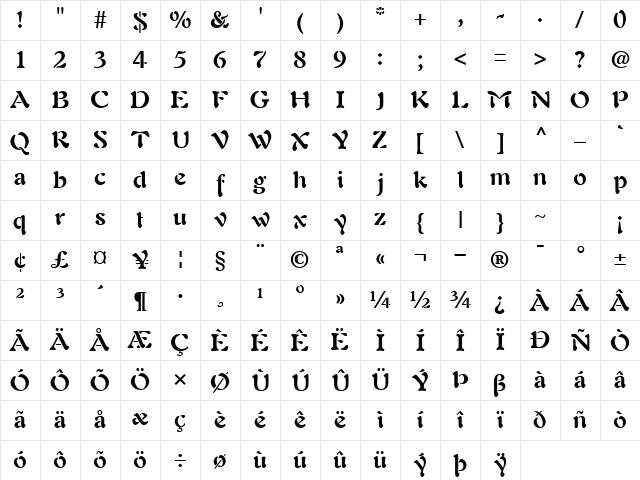
Complete PaletteSSK Bold glyph index. Displaying only characters natively supported by PaletteSSK Bold font.
PaletteSSK is a composed and adaptable typeface that performs quietly and consistently across a wide range of design contexts. Its bold stroke weight gives it real presence on the page.